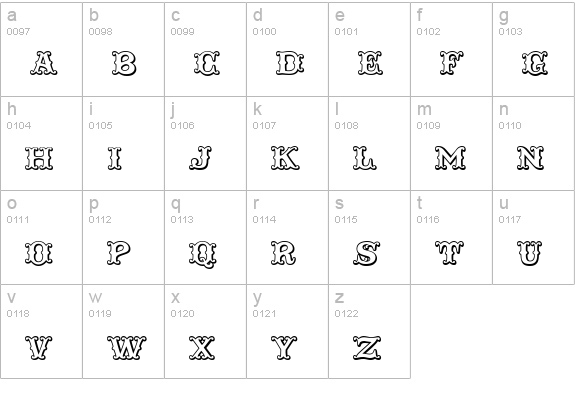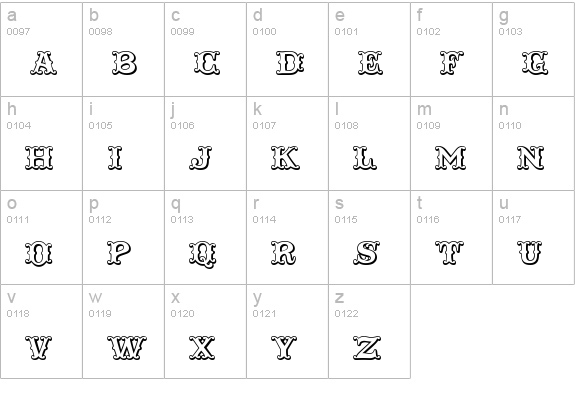
Introducing Taqueria Open, a delectable and visually appealing font that will transport you straight to the vibrant streets of Mexico. With its bold and dynamic letterforms, this font captures the essence of traditional taquerias, creating a typographic experience that is both enticing and authentic. Taqueria Open is a versatile font that can be used for a wide range of design projects. Its playful and energetic style makes it perfect for menus, signage, packaging, and more. Whether you're designing a food truck logo or creating eye-catching social media graphics, this font is sure to make a bold statement. One of the best things about Taqueria Open is that it is freely available to download at FontsMarket.com. This means that you can easily add a touch of Mexican flavor to your designs without any cost. Whether you're a professional designer or a passionate hobbyist, this font allows you to unleash your creativity without breaking the bank. So why wait? Spice up your designs with Taqueria Open and let its lively and authentic letterforms transport your audience to the heart of Mexico. Download this font for free at FontsMarket.com and bring a taste of the taqueria culture to your next design project.